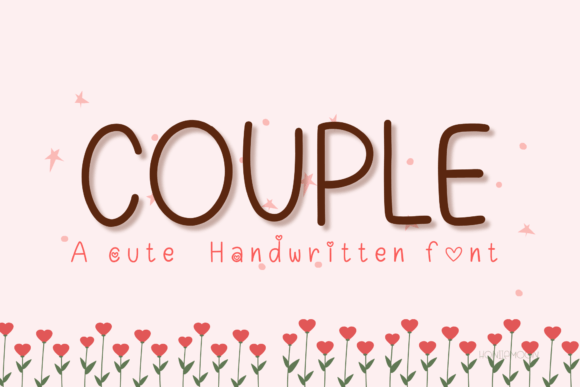
Adding a Touch of Romance to Your Designs
You know that moment when you’re working on a project and everything just falls into place? The colors, the layout, the font – it all comes together in perfect harmony. And then you see it, that one font that takes your design from good to great. For many designers, that font is Couple Font – a fun and adorable handwritten font adorned with lovely hearts.
Couple Font is more than just a pretty face; it’s a valuable tool for designers looking to add a touch of whimsy and romance to their projects. Whether you’re creating a wedding invitation, a children’s book, or a social media post, Couple Font is sure to bring a smile to your audience’s face. Its playful, handwritten feel makes it perfect for adding a personal touch to your designs.
Couple Font Key Features
- Unique Characteristics: Couple Font features a unique, hand-drawn design with elegant lines and subtle flourishes, making it perfect for romantic and wedding-related projects, as well as any other design where a touch of elegance is needed.
Couple Font Review
As a designer, I was excited to dive into the “Couple Font” and see how it stacks up. Overall, I have mixed feelings about this font family.
- The “Couple Font” has a unique and modern aesthetic that’s perfect for designs that need a touch of romance or whimsy.
- The font family includes a wide range of weights and styles, making it versatile for use in various design projects.
- The typography is clean and easy to read, even at smaller font sizes.
- The font family lacks a clear personality or distinctive feature that sets it apart from other modern sans-serif fonts.
- The font may not be the best choice for body text or long-form content, as it can feel a bit too playful or casual.
- The font’s range of weights and styles can be overwhelming, making it difficult to choose the perfect combination for a design project.
Overall, I would give the “Couple Font” 3 out of 5 stars. While it has some great qualities, it ultimately feels like a safe choice rather than a standout font. If you’re looking for a unique and modern font family, you may want to consider other options.
Couple Font Practical Application Guide
Couple Font is a unique, hand-drawn typeface designed to represent the connection between two people. To use it in your designs, follow these steps:
Tips for Getting the Most Out of Couple Font
Experiment with different font sizes, colors, and combinations to create a unique look. Use Couple Font in conjunction with other design elements, such as graphics and images, to add depth and interest to your designs.
Couple Font is perfect for:
- Love-themed graphics and designs
- Anniversary and Valentine’s Day cards
- Relationship-themed social media posts
Alternatives to Couple Font
Lato is a modern sans-serif font designed by Łukasz Dziedzic. It is suitable for body text and headlines due to its clear and legible design. Lato is a great alternative to Couple Font when you need a clean and minimalist look. It is also highly customizable and comes in a wide range of weights.
Comparison: Lato has a more neutral and professional tone compared to Couple Font, which has a more playful and handwritten feel.